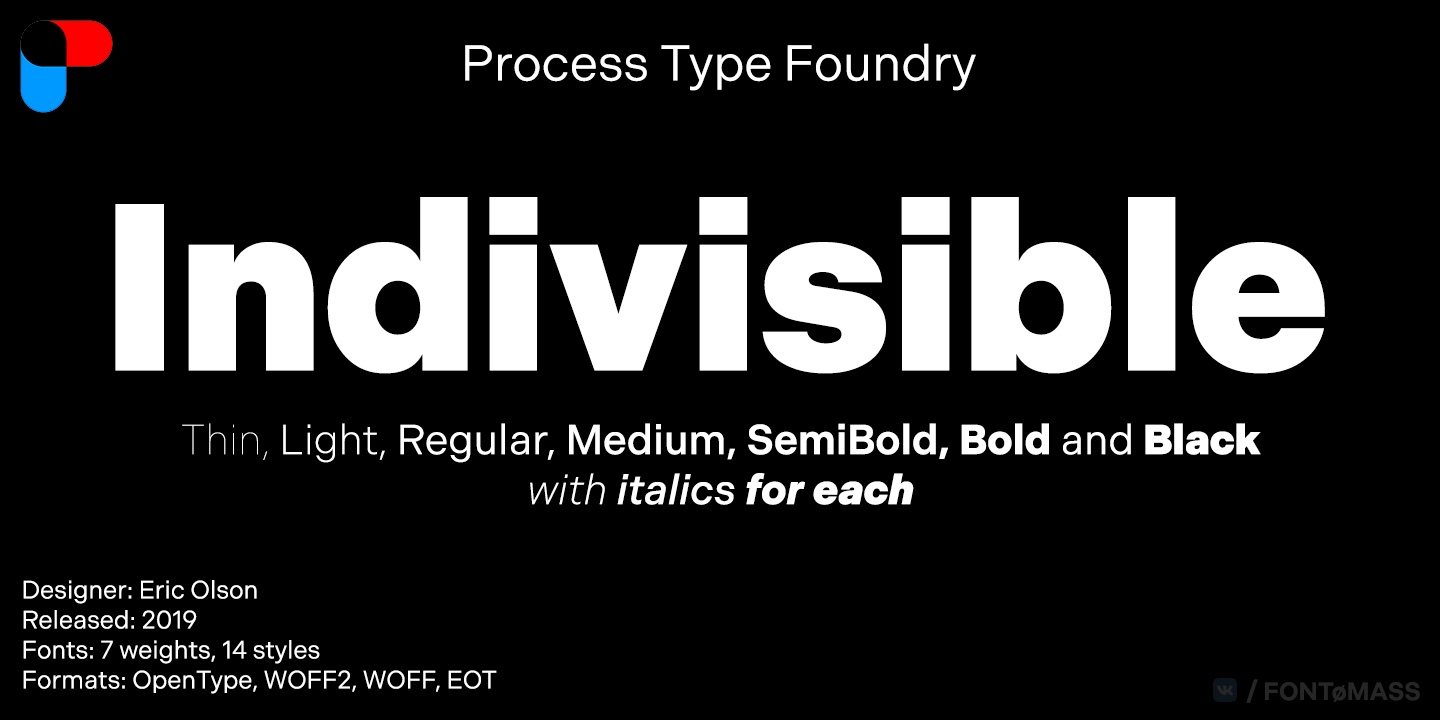
Indivisible Font
Indivisible Font is perfect for various design applications including unbreakable brand identities, strong partnership communications, solid foundation organization materials, permanent solution service providers, lasting impact campaign graphics, enduring relationship counseling services, unshakeable trust financial institutions, permanent establishment business logos, solid commitment nonprofit organizations, and authentic reliability-focused brand communications. This steadfast typeface excels in projects requiring permanence messaging and unbreakable strength that captures the enduring quality and lasting reliability of organizations that stand the test of time.
What makes Indivisible Font so exciting is its steadfast embodiment of permanence and unbreakable reliability through letterforms that suggest mathematical precision and the fundamental constants that define lasting stability and enduring success. The font features solid construction that mirrors unbreakable materials and permanent structures, stable proportions that communicate reliability and lasting quality, and distinctive character details that reflect the precision and consistency that create enduring value and permanent solutions. Its distinctive permanence character and reliability appeal make it perfect for organizations seeking to communicate stability, trustworthiness, and the kind of unshakeable foundation that builds lasting success and permanent relationships.
Indivisible Font family includes multiple stable weights and permanence variations that enhance its versatility for different reliability applications. Each style maintains the font's signature steadfast character while providing options for various stability-focused design approaches. The family also features permanence-themed decorative elements, stability symbols, and enduring strength ornaments that can be combined with the letterforms to create cohesive lasting quality design systems.
Indivisible Font stands out by delivering authentic stability that feels genuinely permanent rather than artificially solid or superficially strong. Its carefully engineered permanence proportions and stability details ensure that designs feel authentically connected to lasting quality traditions while maintaining contemporary relevance and appeal. From financial institution branding to permanence-focused communications, this font provides designers with tools to create communications that celebrate enduring quality and inspire appreciation for unbreakable reliability through solid, mathematically-inspired typography that stands the test of time.